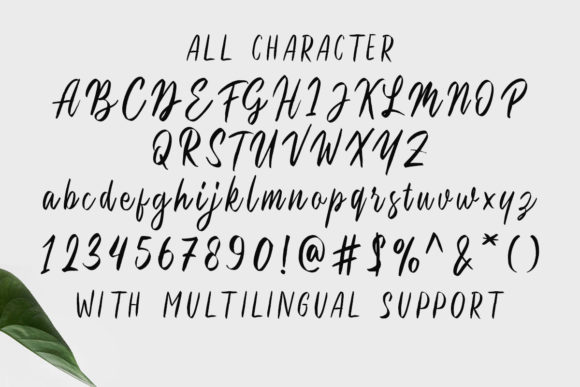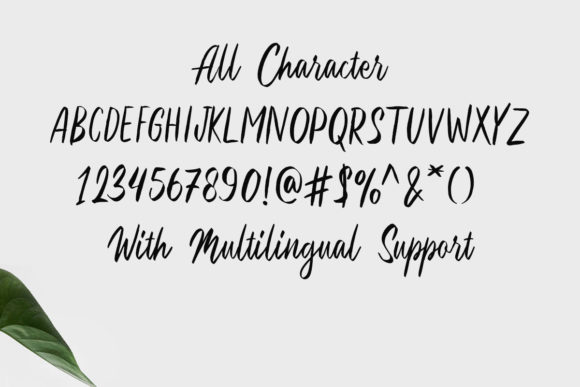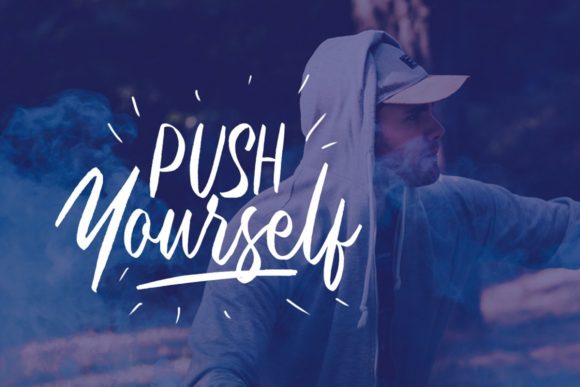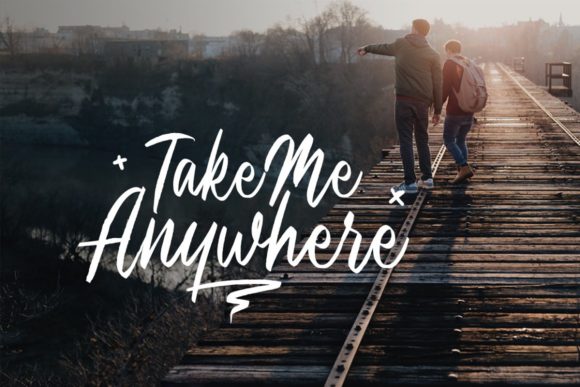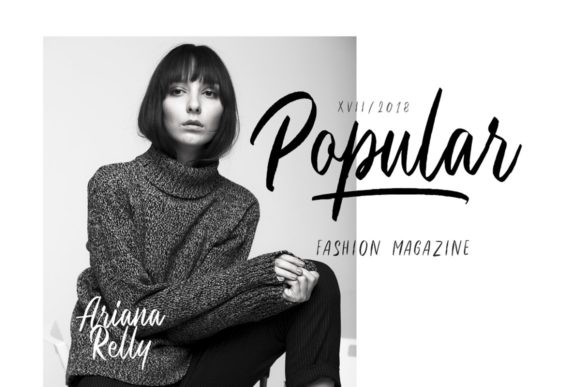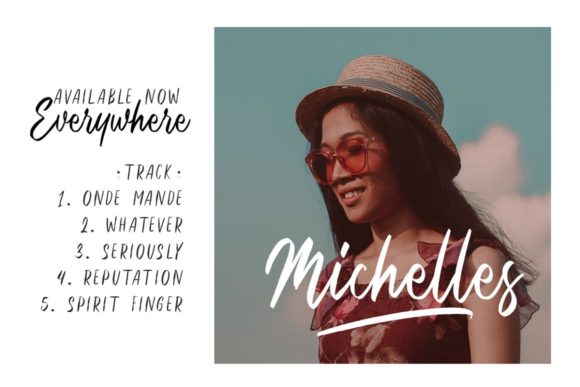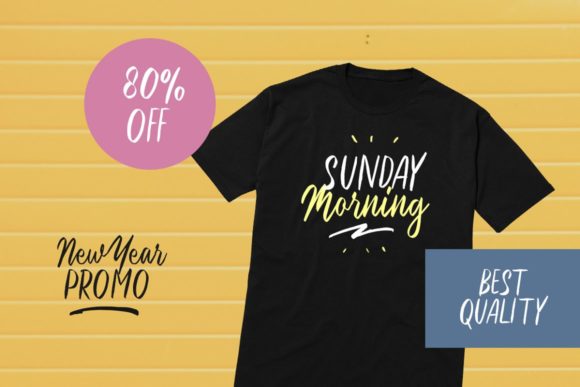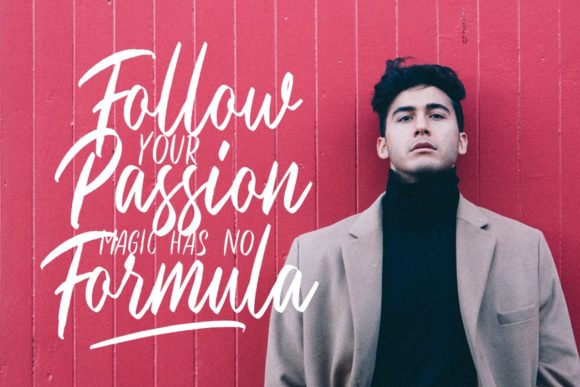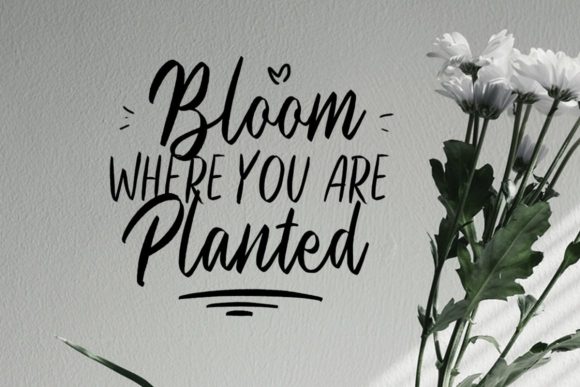
Black Hymned Font
About Black Hymned Font
Black Hymned is a stunning and contemporary handwritten font that exudes beauty and style. Its trendy and fashionable appearance makes it a perfect fit for a wide variety of creative ideas, from elegant letterheads and eye-catching titles to personalized stationery.
The font’s clean and smooth lines give it a modern and sophisticated feel, making it suitable for a range of design projects. It adds a touch of elegance and professionalism to business materials, while also maintaining a sense of creativity and uniqueness.
In branding and logo designs, Black Hymned’s stylish look sets a high standard and leaves a lasting impression on customers. Its versatility allows it to be used for a variety of industries, from fashion and beauty to luxury products and lifestyle brands.
For crafting projects and DIY designs, Black Hymned adds a touch of sophistication and creativity. Whether you’re creating personalized gifts, scrapbook titles, or handmade cards, the font elevates your creations and adds a stylish flair.
In stationery and invitations, Black Hymned’s beauty shines through, creating a chic and timeless look for wedding invitations, thank-you cards, and other special occasions.
The font’s trendy appearance also makes it perfect for social media posts and digital designs. It captures attention and enhances the visual appeal of your online content, whether you’re creating quotes, promotional graphics, or engaging with your audience.
Overall, Black Hymned is a beautiful and stylish handwritten font that brings elegance and sophistication to a wide range of crafty ideas. Its trendy look makes it a versatile choice for various design projects, from letterheads and titles to stationery and social media posts. Embrace the beauty of Black Hymned and add a touch of contemporary style to your creative endeavors.